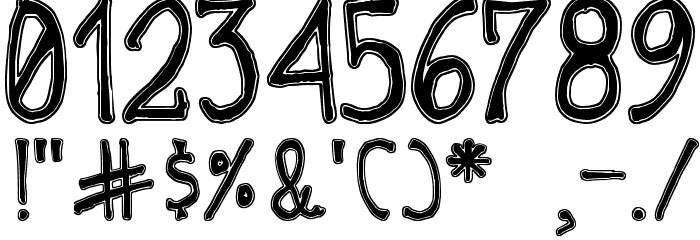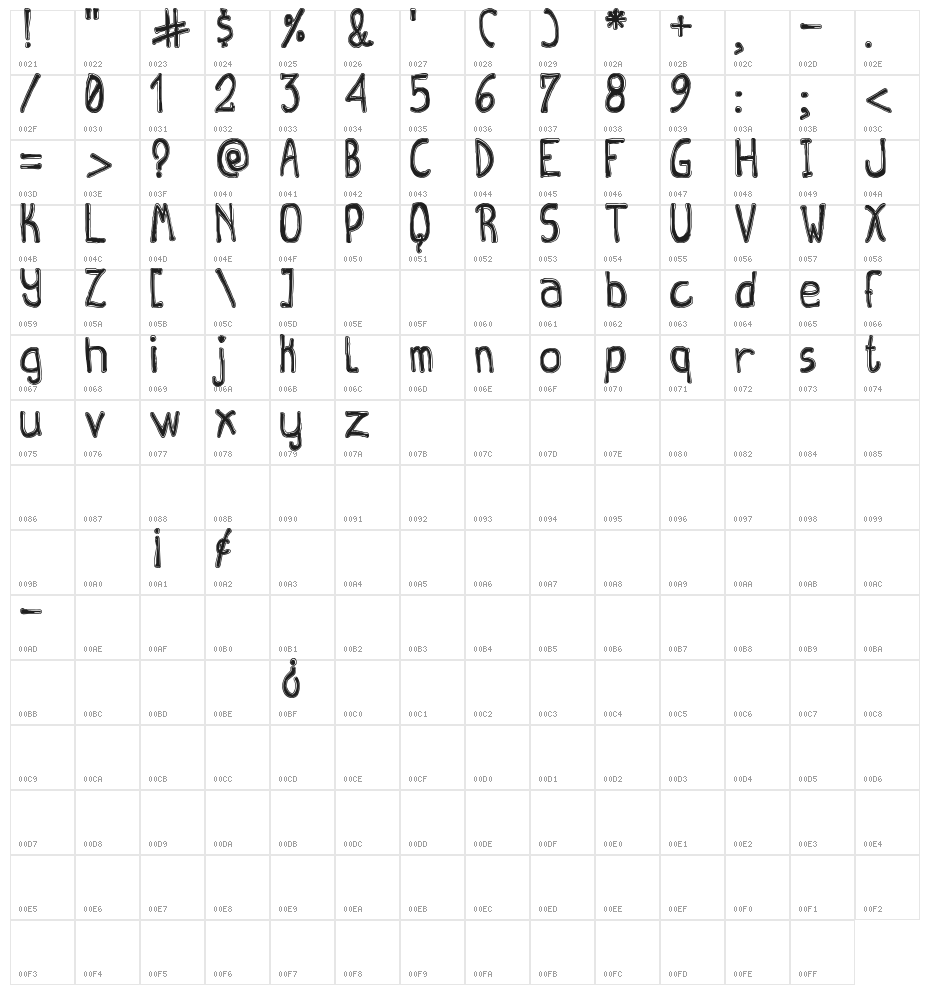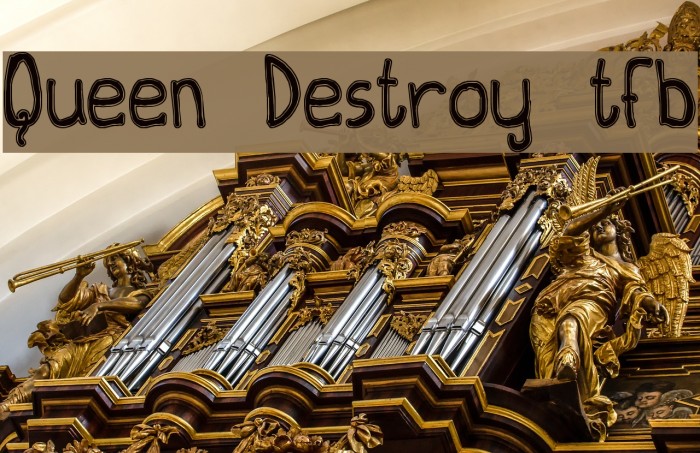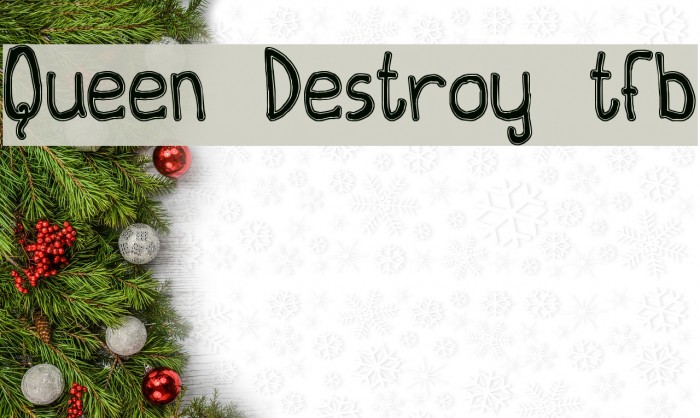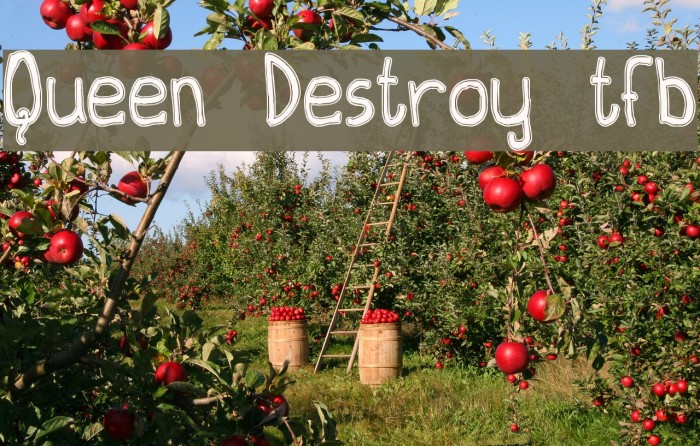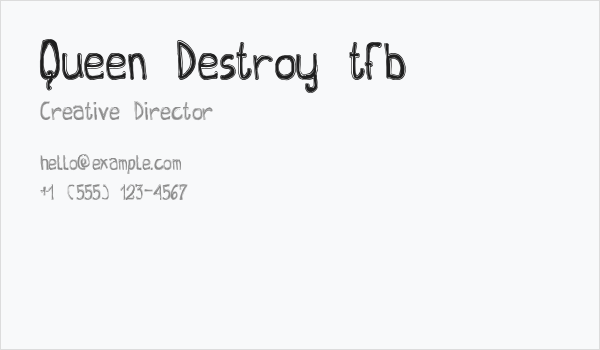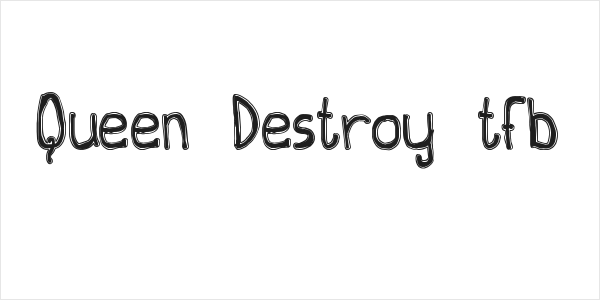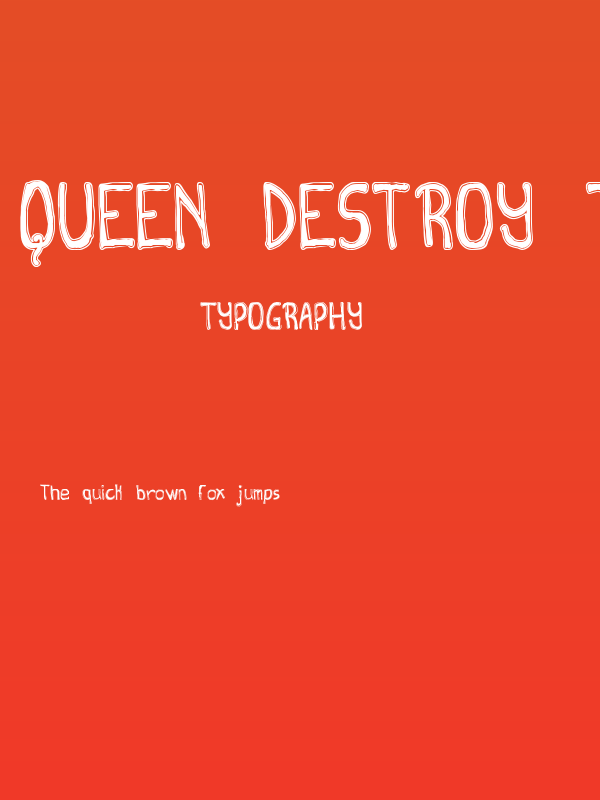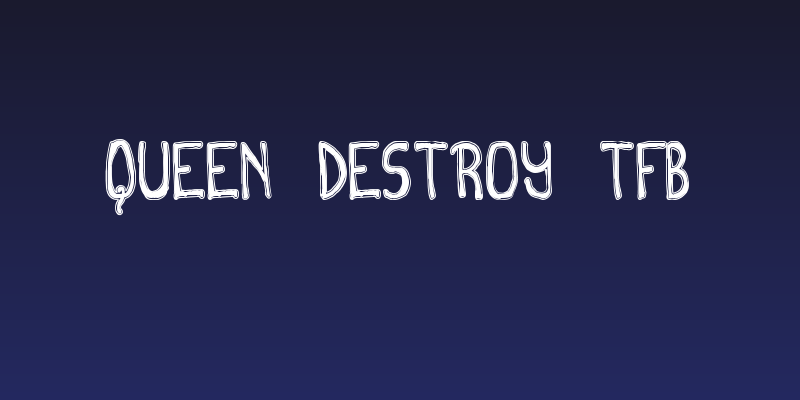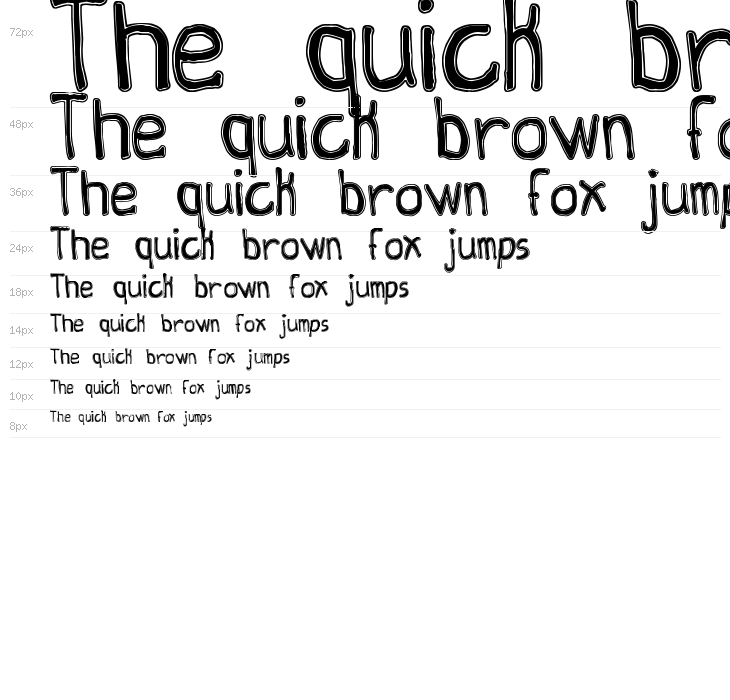
Queen Destroy tfb Font
Queen Destroy tfb Description
This font features a playful and bold handwritten style, characterized by its thick, uneven strokes and slightly irregular letterforms. The letters have a casual, informal appearance, with a whimsical touch that adds personality to the text. The uppercase and lowercase letters maintain a consistent style, with rounded edges and a slightly exaggerated width. Numbers and special characters follow the same design principles, ensuring a cohesive look across all elements. The font's unique style makes it stand out, offering a creative and artistic vibe.
| Proposed Projects | Ideal for creative projects such as children's books, playful branding, casual invitations, and artistic posters. |